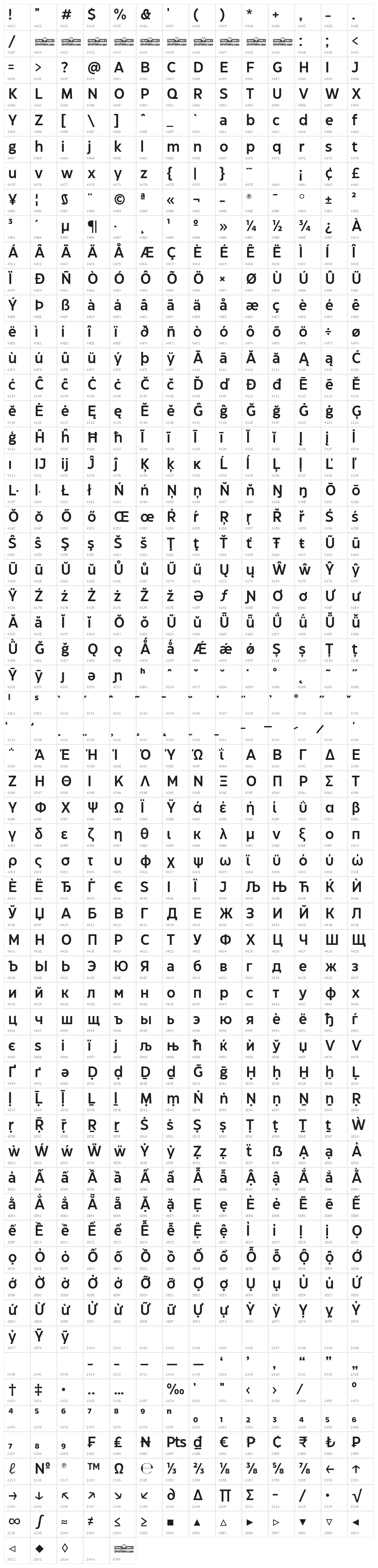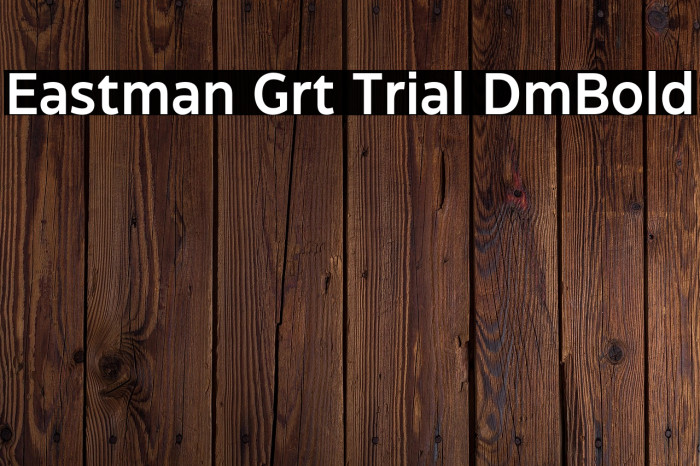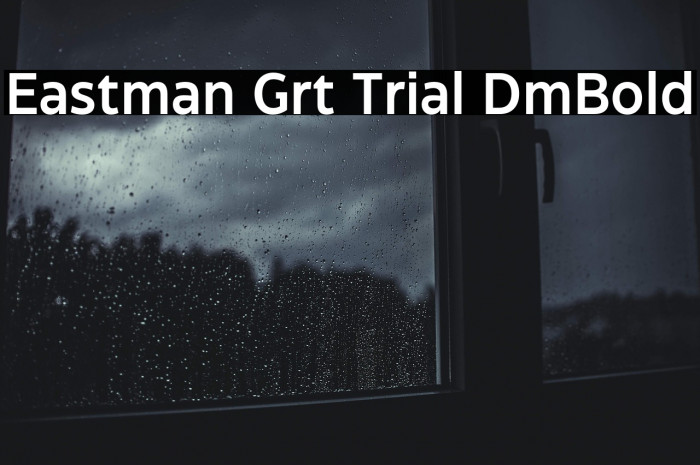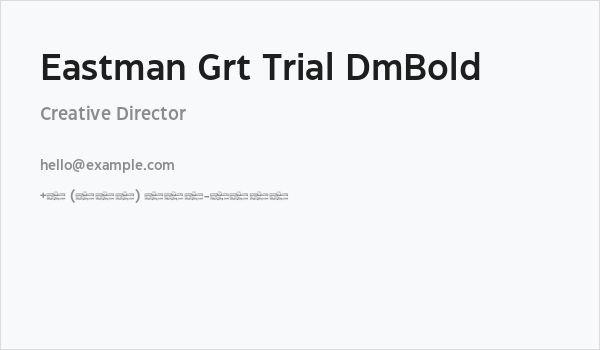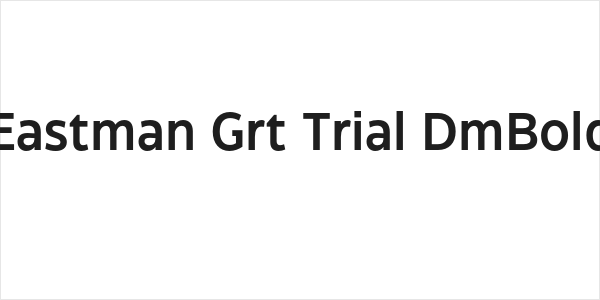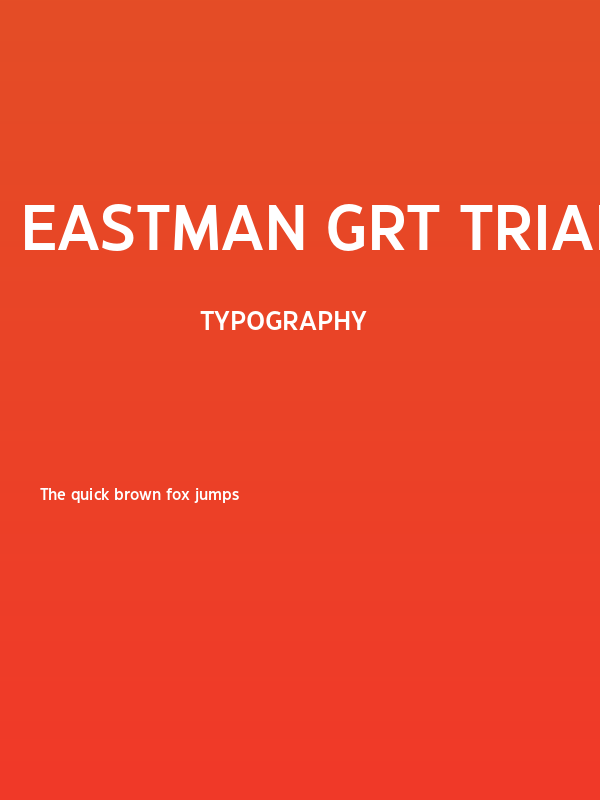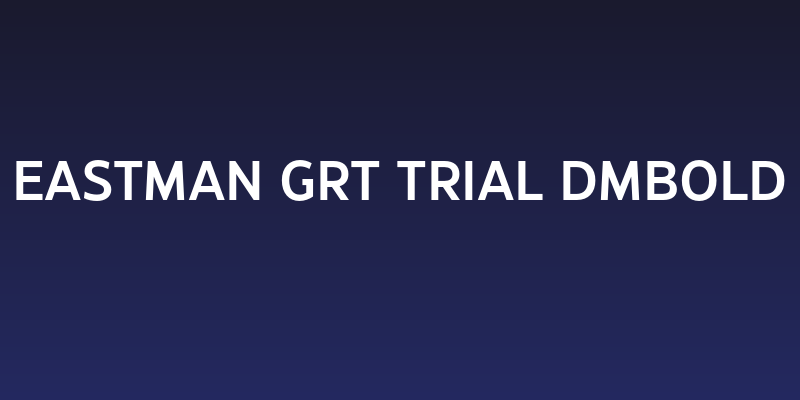
Eastman Grt Trial DmBold Font
Eastman Grt Trial DmBold Description
This typeface features a bold and modern sans-serif design, characterized by clean lines and a strong presence. The uppercase and lowercase letters are well-proportioned, offering a harmonious balance that enhances readability. The numerals and special characters maintain the same boldness, ensuring consistency across different uses. The font's simplicity and clarity make it versatile for various applications, from digital to print media. Its geometric shapes and uniform stroke widths contribute to a contemporary aesthetic, making it suitable for modern branding and design projects.